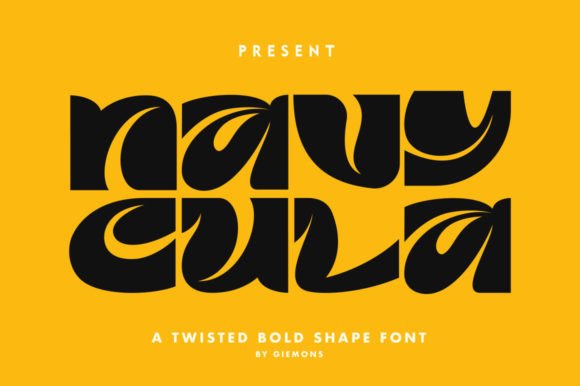
Behold Navycula, the display font that ignites creativity and commands attention!
Dive into the captivating energy of Navycula, where bold strokes dance with playful curves, creating a visual spectacle that dances off the screen. Let your designs exude dynamism with this remarkable display font, perfect for crafting headlines that leap off the page, logos that leave an indelible mark, and captivating design projects that demand notice.
With Navycula's exhilarating letterforms, you can transform ordinary words into extraordinary statements, injecting a surge of energy into your designs. Its unique curves and angles evoke a sense of motion and fluidity, drawing eyes and captivating imaginations.
Immerse yourself in the visual symphony of Navycula, where chunky weights provide a steadfast anchor, grounding your designs with a sense of stability and strength. This harmonious balance of boldness and finesse empowers you to craft designs that resonate, leaving a lasting impression on your audience.
Unleash the boundless potential of Navycula - the font crafted to elevate your designs to new heights. Whether you're a seasoned designer seeking to add a touch of intrigue to your work or a creative explorer seeking a font that sparks your imagination, Navycula awaits your command.